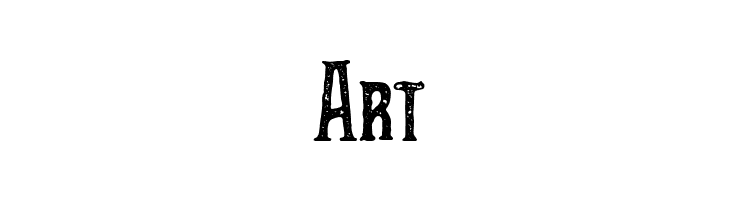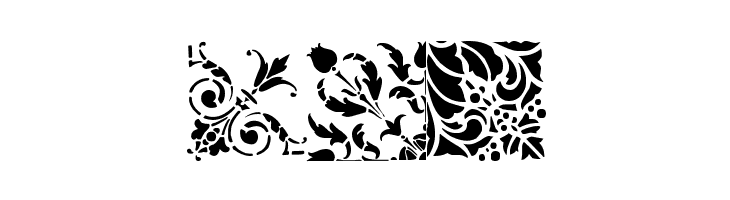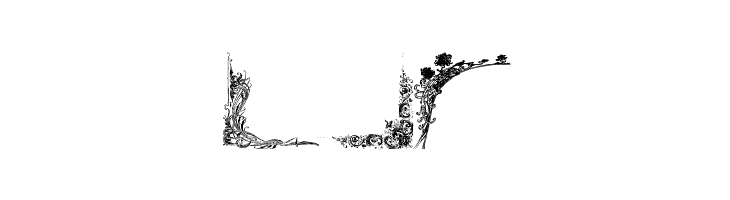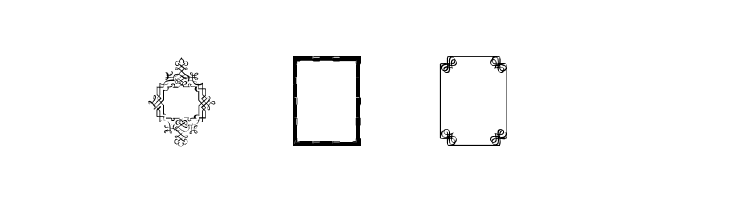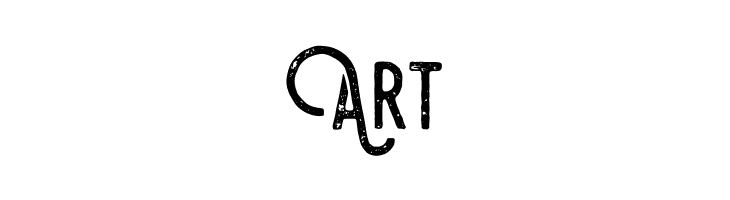
A decorative font with intricate vine patterns within each character.
A lively handwritten font with fluid, natural strokes and a playful aesthetic.
A decorative, grunge-inspired font with a vintage and eclectic style.
A decorative set of music-themed graphics and symbols.
A playful and nostalgic set of 1950s-themed icons with bold, retro designs.
Ornate and vintage vignettes with intricate floral and decorative motifs.
A pictorial, hand-drawn display font using household and vintage item illustrations.
A playful, music-inspired font with bold, rounded shapes and decorative accents.
A bold, distressed font with a grunge texture and vintage appeal.
A bold, distressed font with a hand-drawn, textured style.
Bold, uppercase sans-serif letters within circular shapes for a vintage button badge look.
A playful, eclectic font with vintage-inspired graphics and text styles.
A playful, retro font inspired by vintage drugstore signage.
A decorative, vintage-style font with a playful, stamp-like appearance.
A bold, textured font with a vintage halftone pattern.
A playful and casual handwritten font with irregular strokes and a lively appearance.
A playful, handwritten font with bold strokes and quirky character spacing.